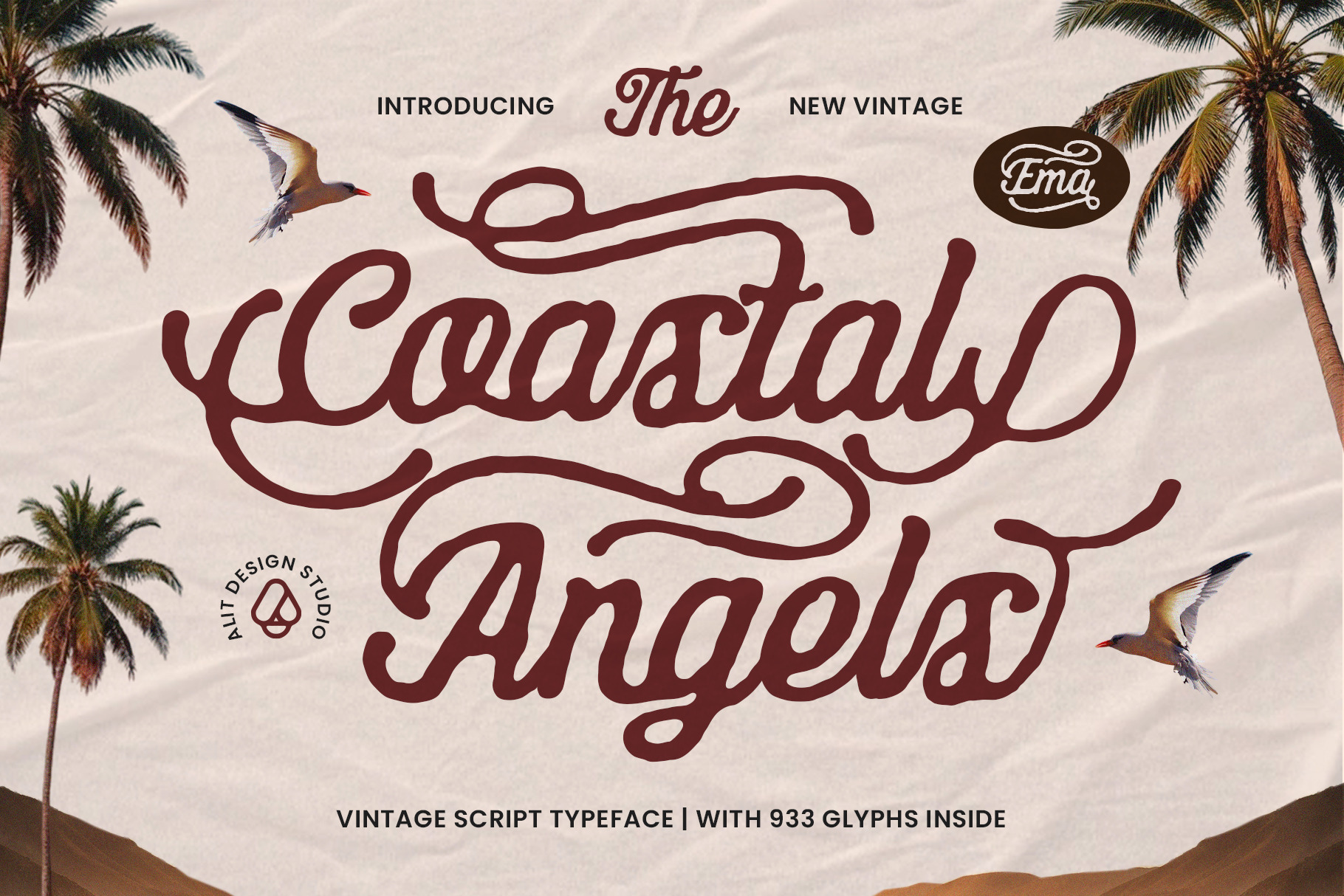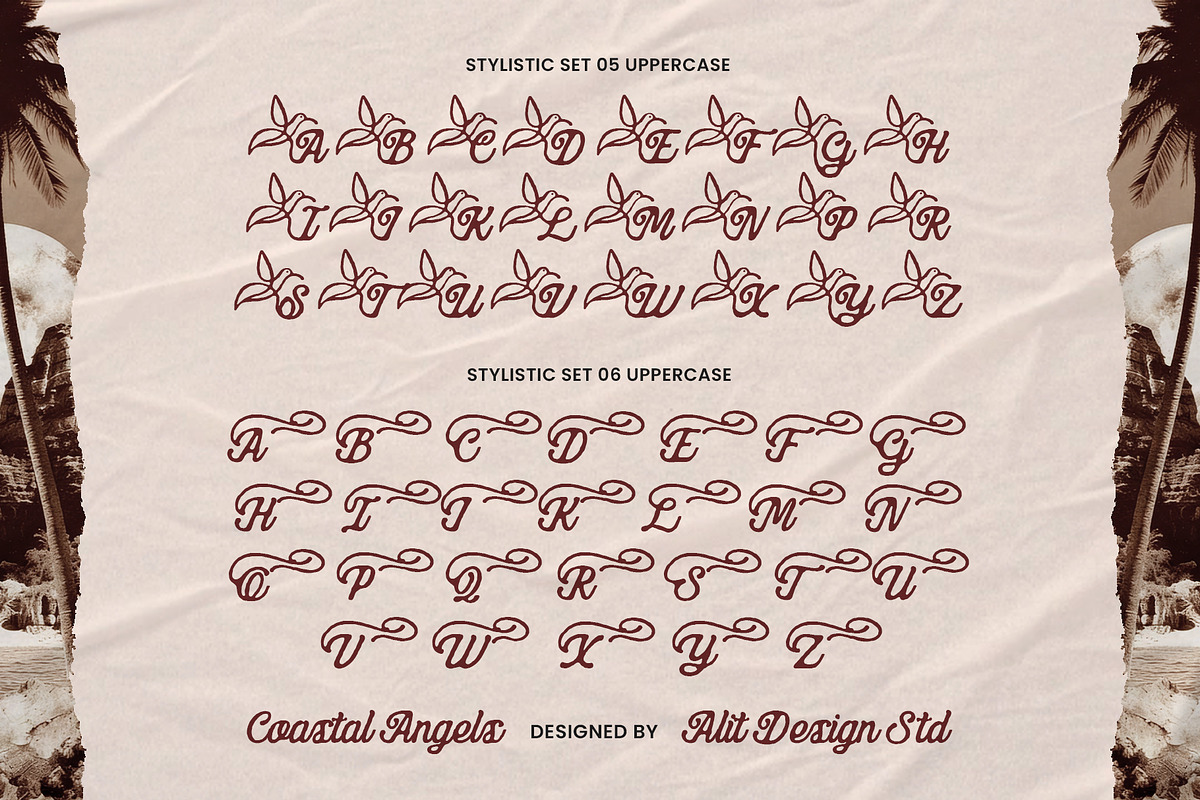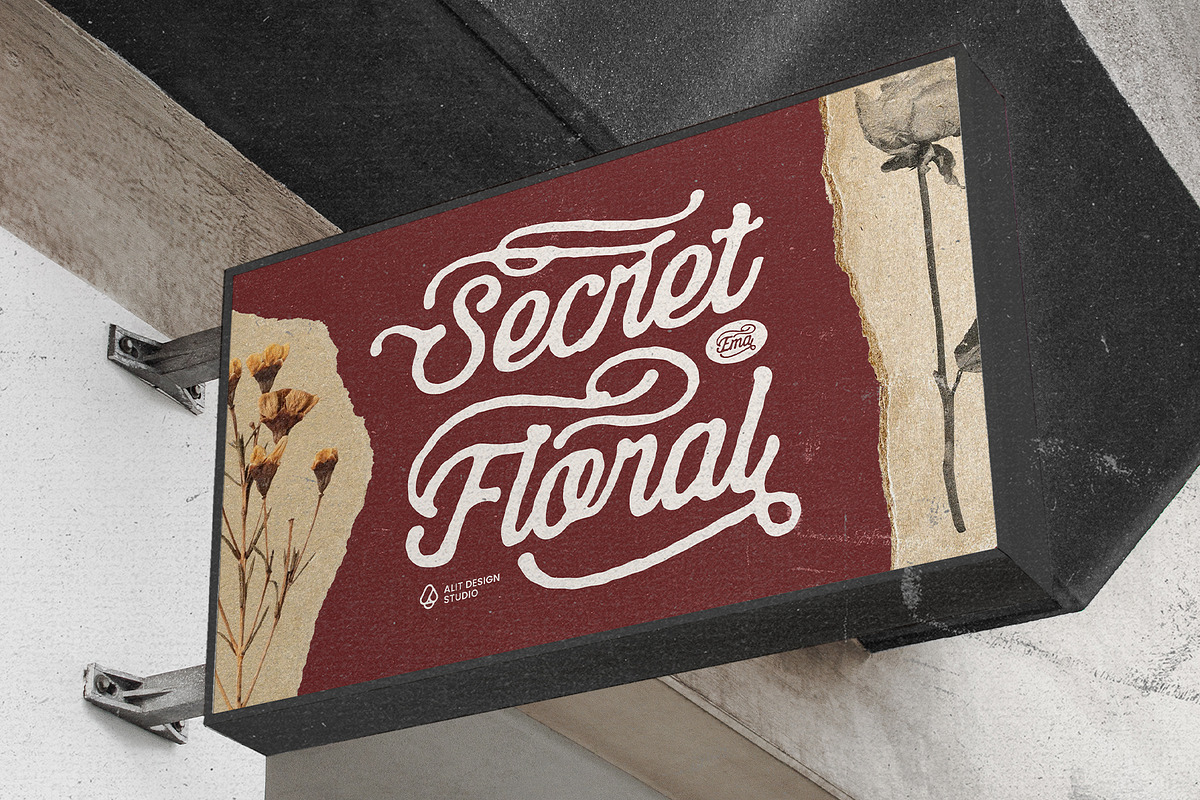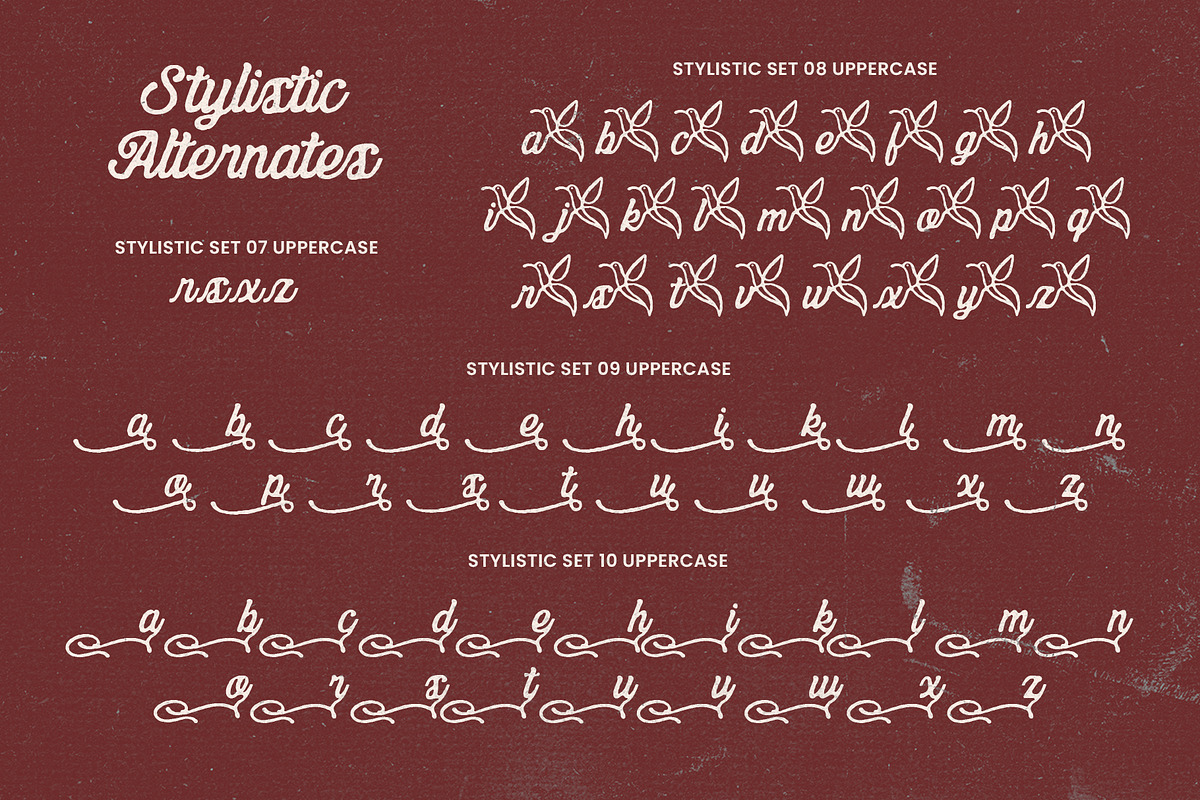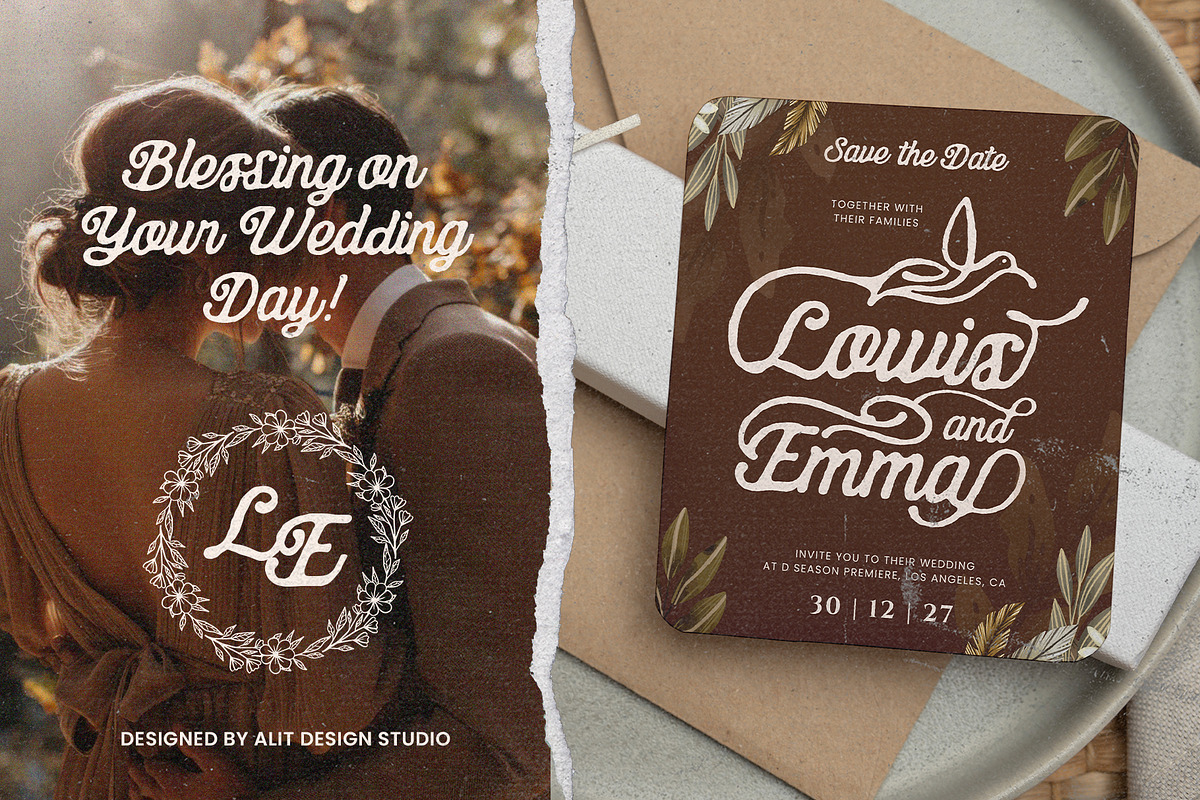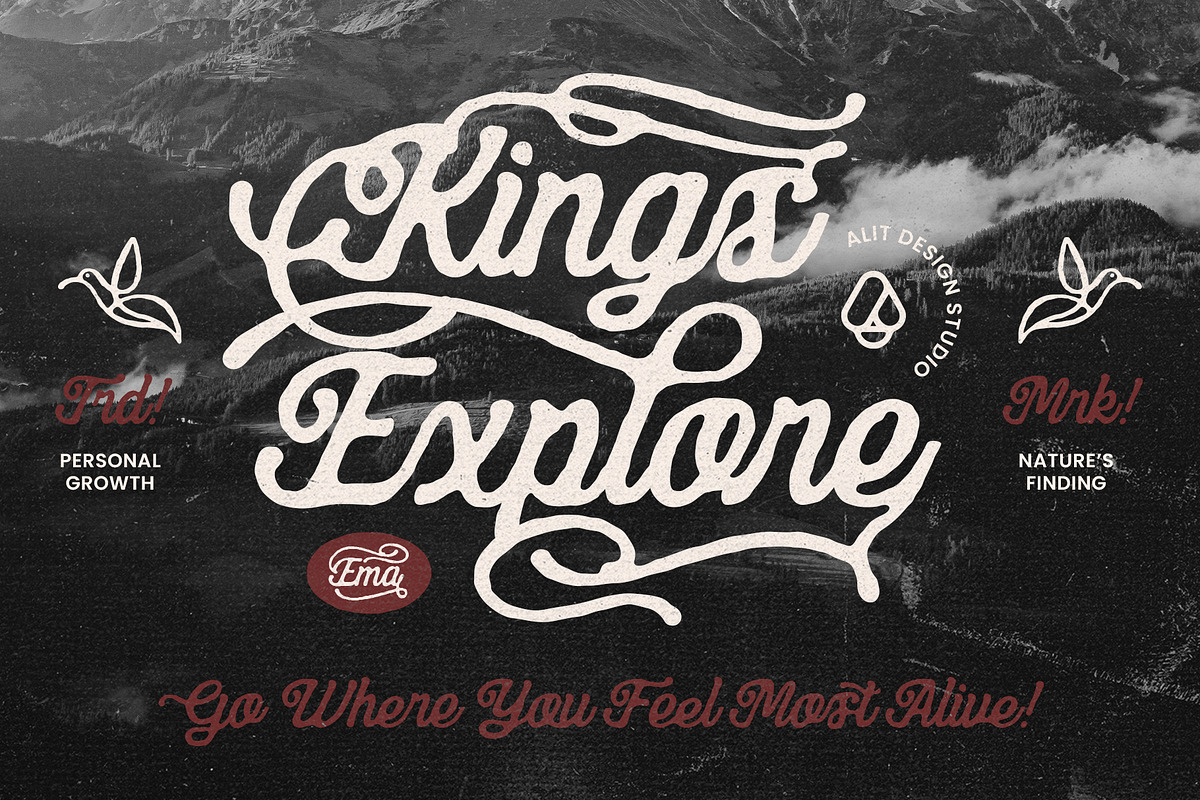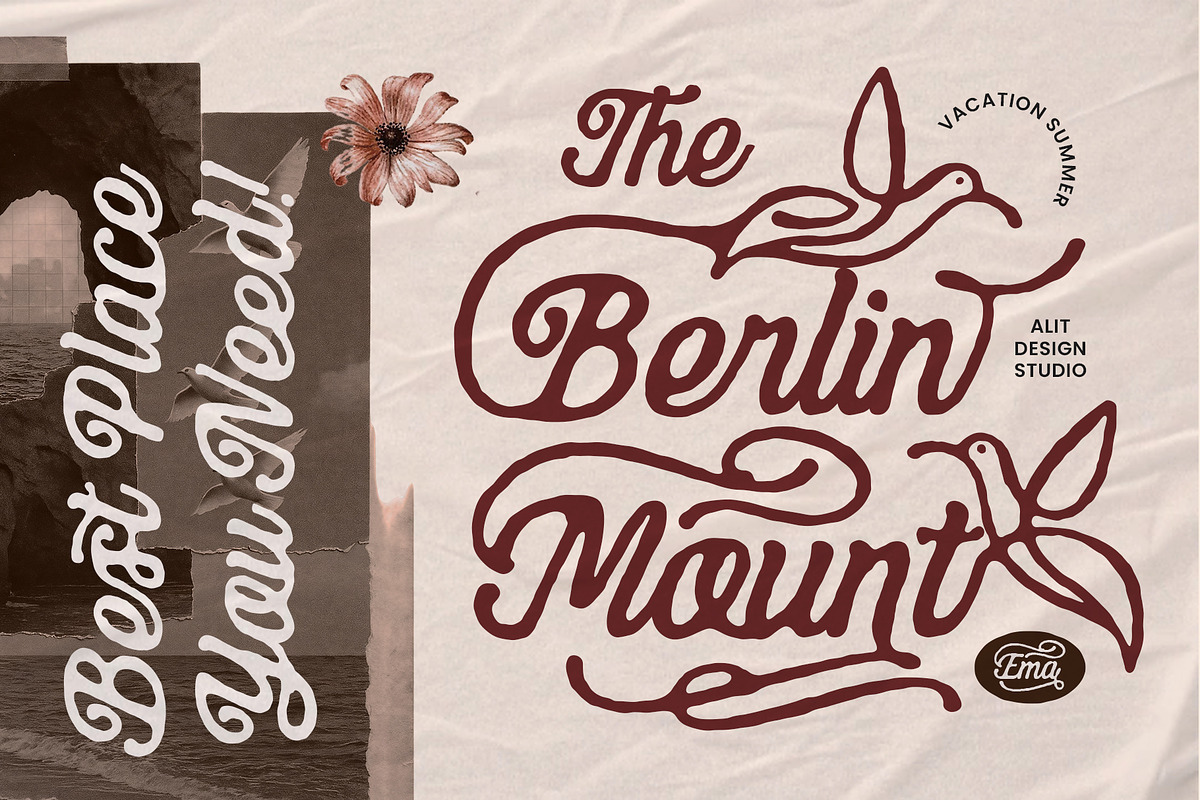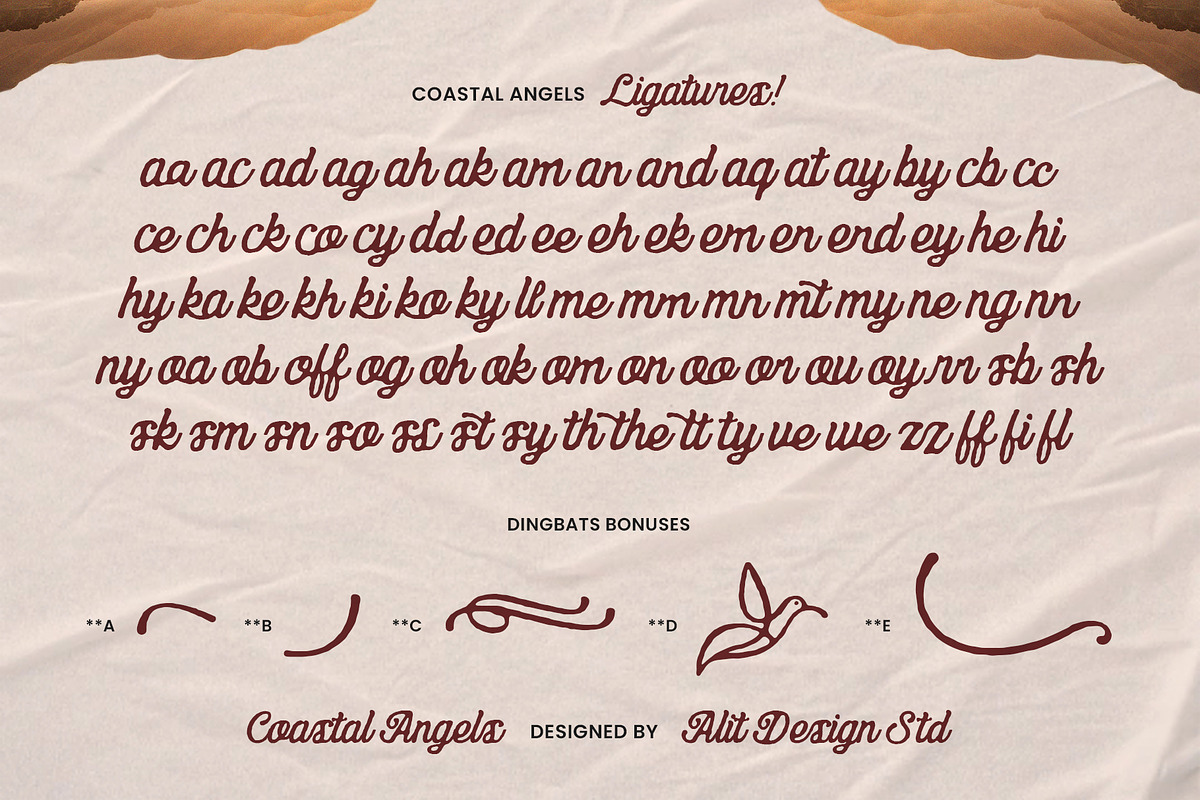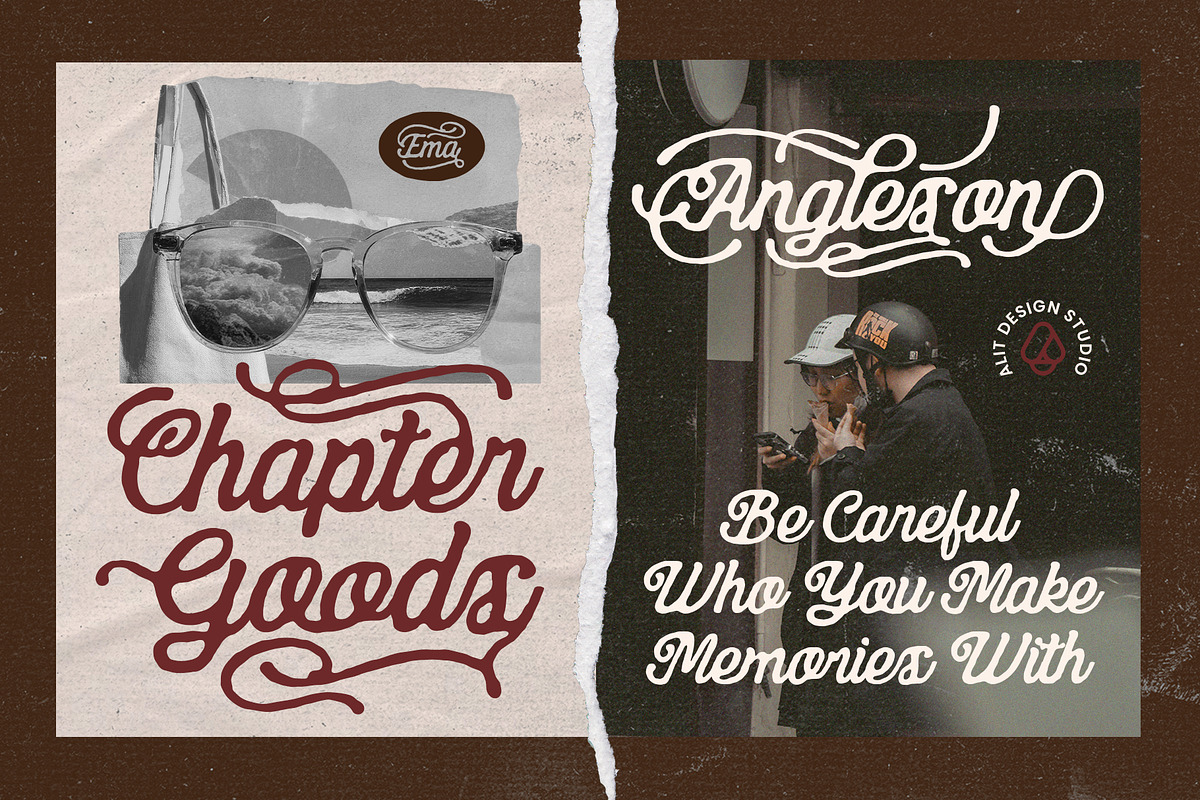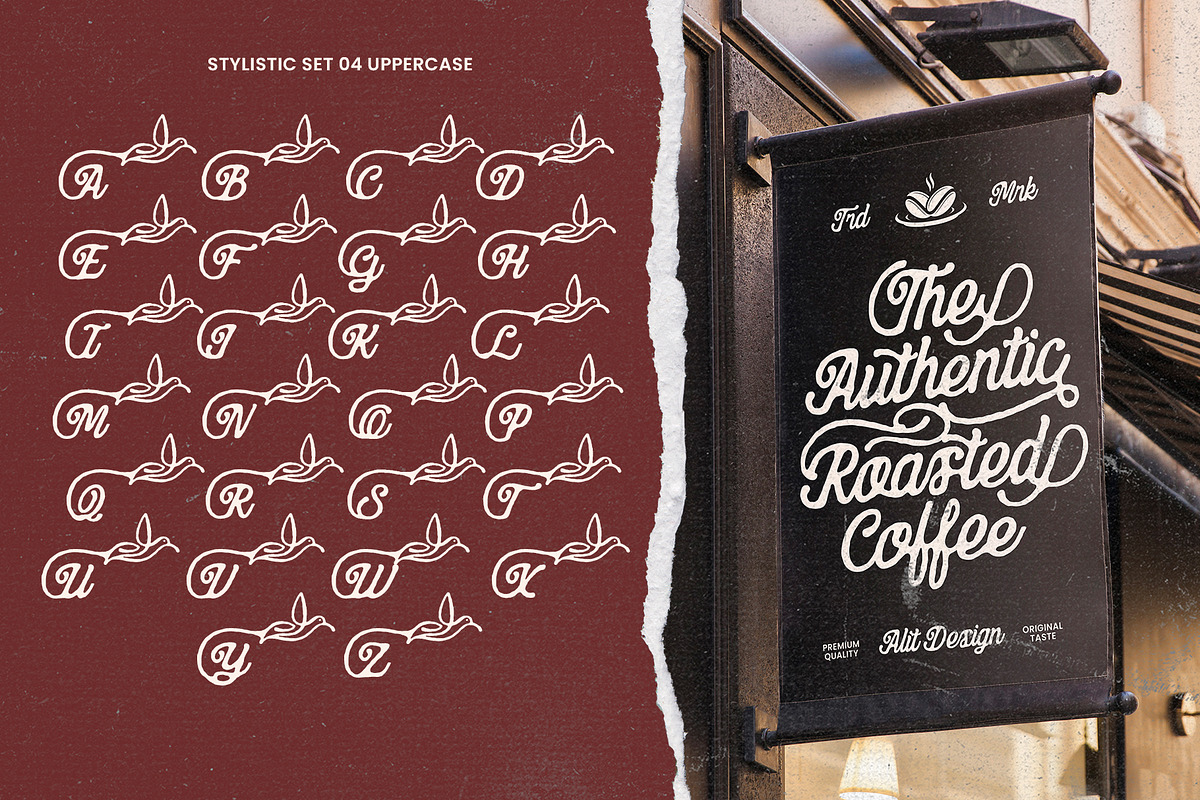
Coastal Angels Typeface
Coastal Angels: A Timeless Tribute to Vintage Coastal Elegance
Capture the breezy, nostalgic essence of the shoreline with Coastal Angels, a masterfully crafted vintage script typeface designed to bring romance and quiet strength to your creative projects.
Inspired by classic mid-century aesthetics and organic coastal forms, Coastal Angels is more than just a font—it’s a comprehensive design toolkit. With an expansive library of 933 glyphs, this typeface offers unparalleled flexibility. Whether you are designing high-end wedding invitations, vintage-inspired fashion branding, or artisanal coffee shop identities, Coastal Angels provides the perfect balance of decorative flair and professional legibility.
The Soul of Versatility What sets Coastal Angels apart is its incredible depth of Stylistic Alternates. The typeface includes 10 distinct Stylistic Sets, allowing you to transform a simple word into a custom piece of lettering. From elegant swashes and flowing underscores to unique bird-inspired decorative initials, you can tailor every character to fit your specific vision.
Main Features:
- Massive Character Set: Includes 933 glyphs to ensure you never run out of creative options.
- Extensive Alternates: 10 Stylistic Sets for Uppercase and Lowercase, providing endless swash and flourish combinations.
- Vintage Aesthetics: Perfectly captures the "New Vintage" look—modern clean lines meet classic script soul.
- Multilingual Support: Ready for global design needs.
- Wedding Stationery: Create breathtaking "Save the Date" cards and invitations.
- Branding & Logos: Ideal for fashion labels, cafes, and boutique studios.
- Editorial Design: Adds a sophisticated, cinematic touch to magazine layouts and posters.
- Merchandise: Elevate apparel designs, tote bags, and product packaging with a custom-lettered feel.